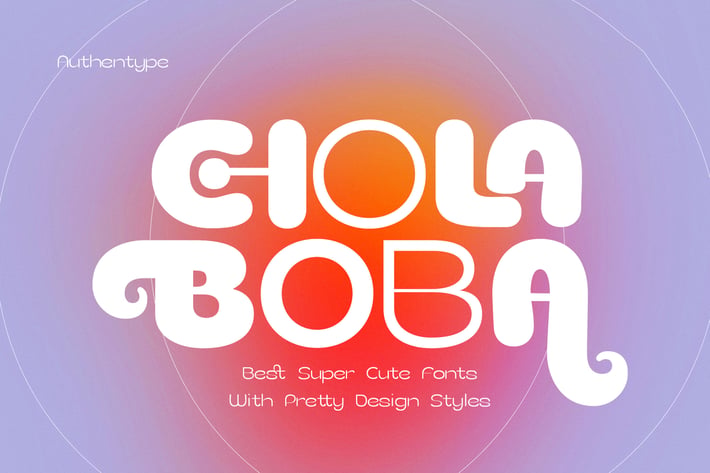
Chola Boba - Cute Logo Type Font
Chola Boba - Cute Logo Type Font for Fun Branding
Chola Boba is a friendly, cute logo font with an innocent, youthful vibe. Perfect for print, digital, and web designs, this font brings charm to any project.
With nine unique weights and a cheerful sans-serif style, Chola Boba makes your text readable and easily recognizable to your audience. Try Chola Boba in your next project and add a playful touch to your designs!
Standard glyphs modern sans serif uppercase and lowercase letters
Numerals, a large range of punctuation and ligatures
Stylistic Set and Swash
* Multilingual support for; ä ö ü Ä Ö Ü ß ¿¡